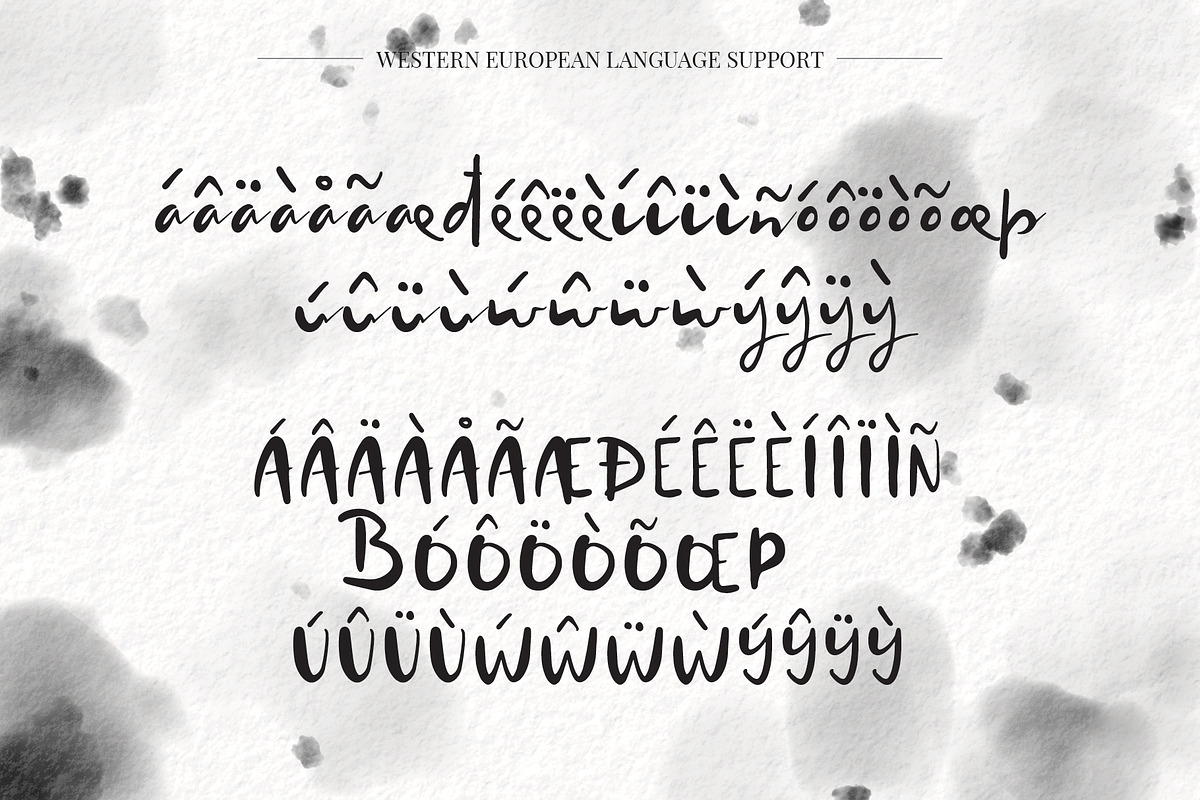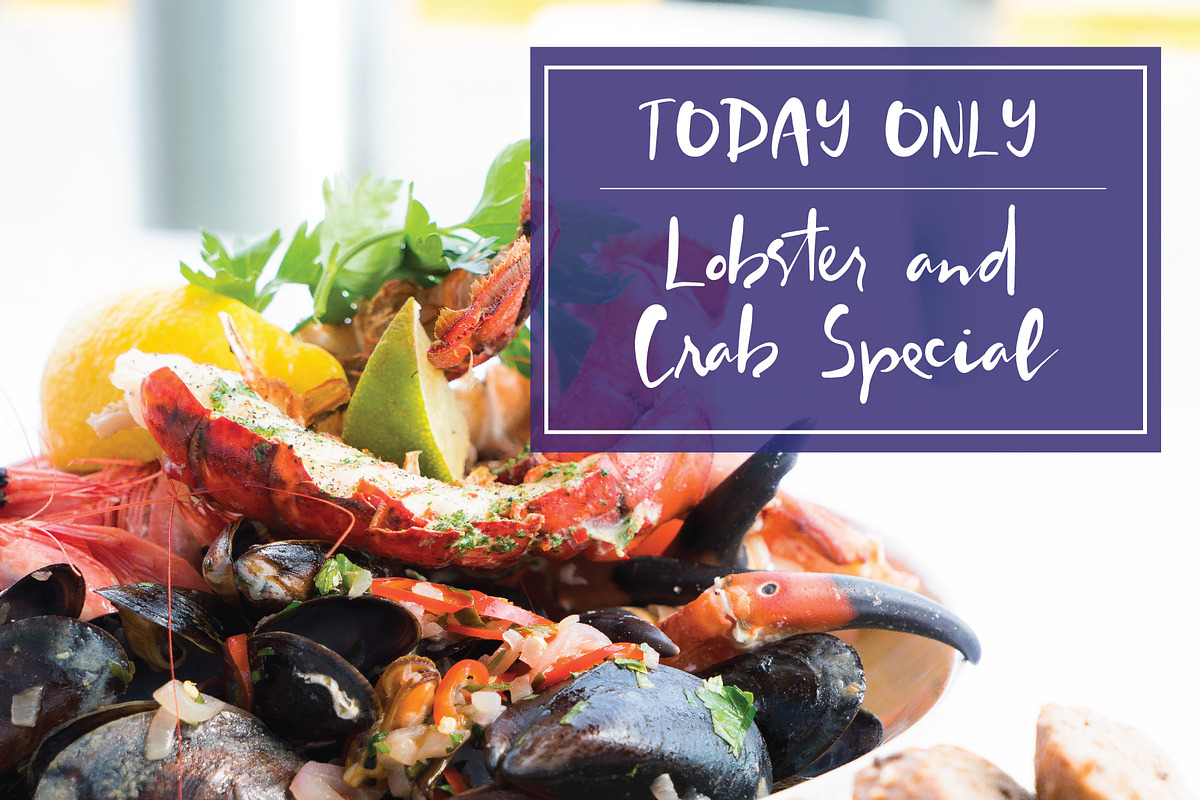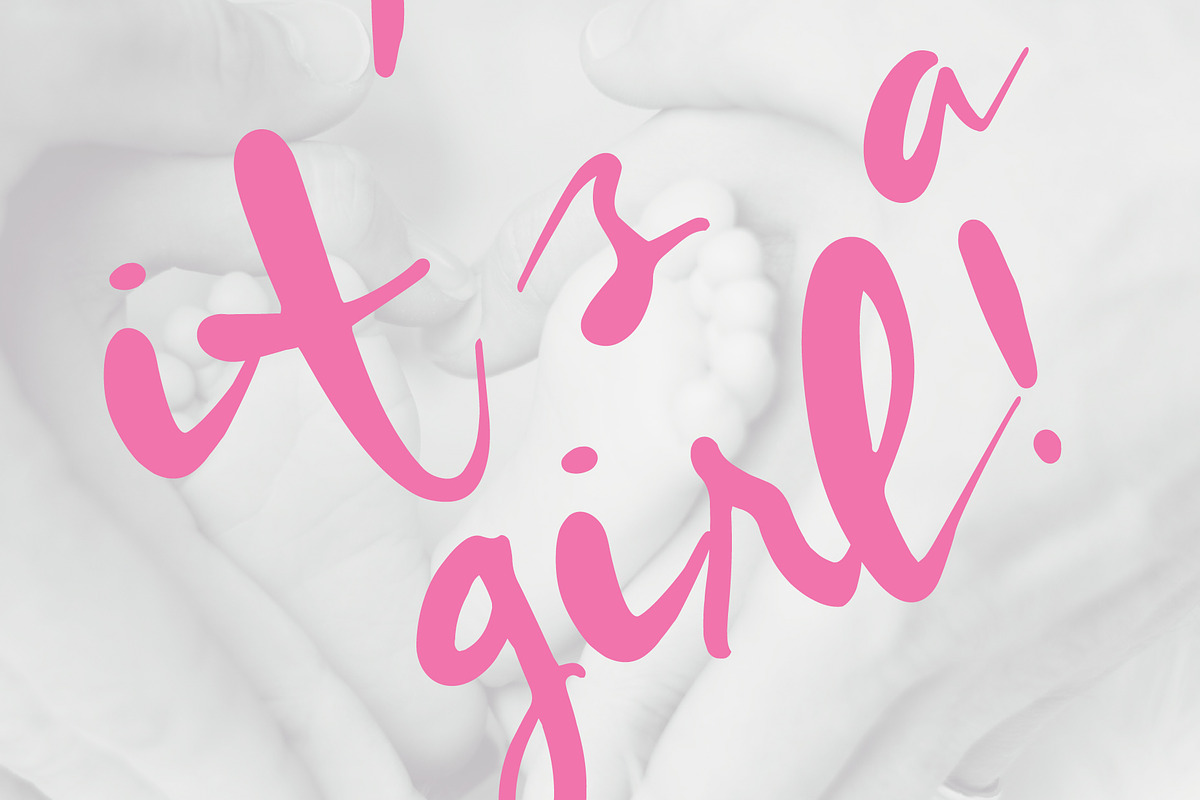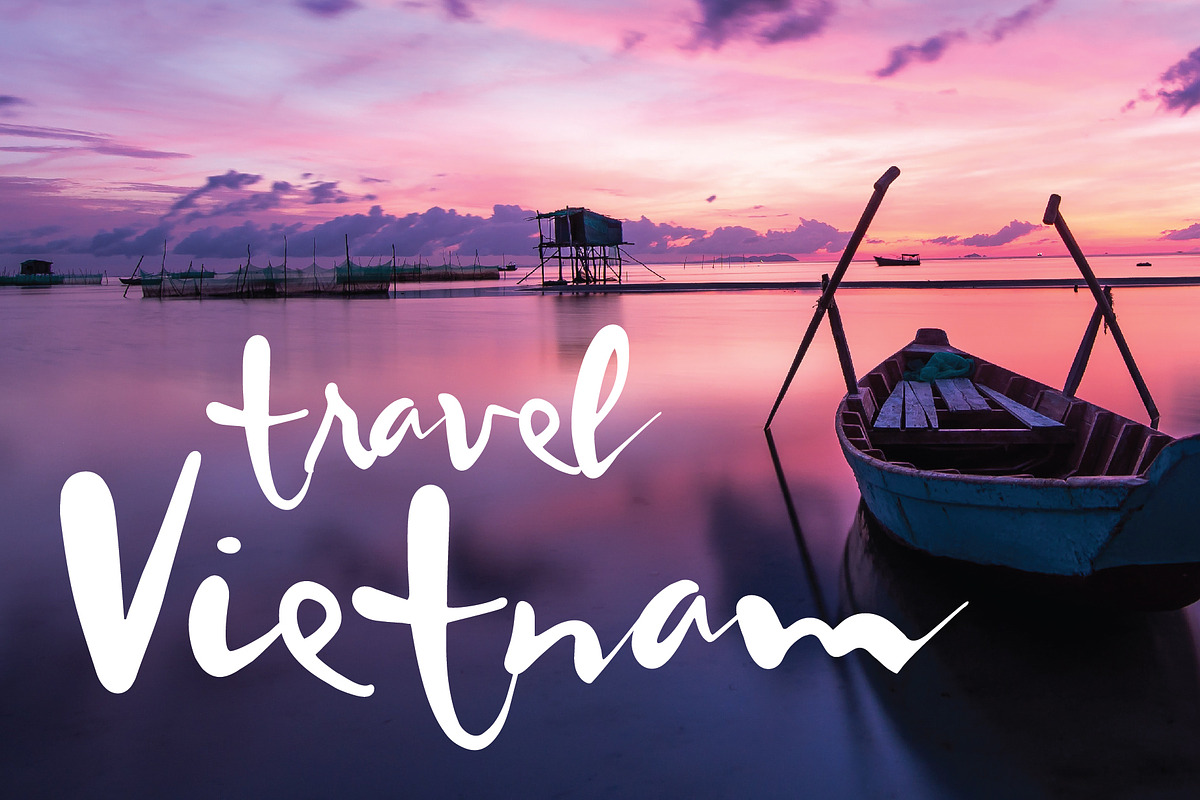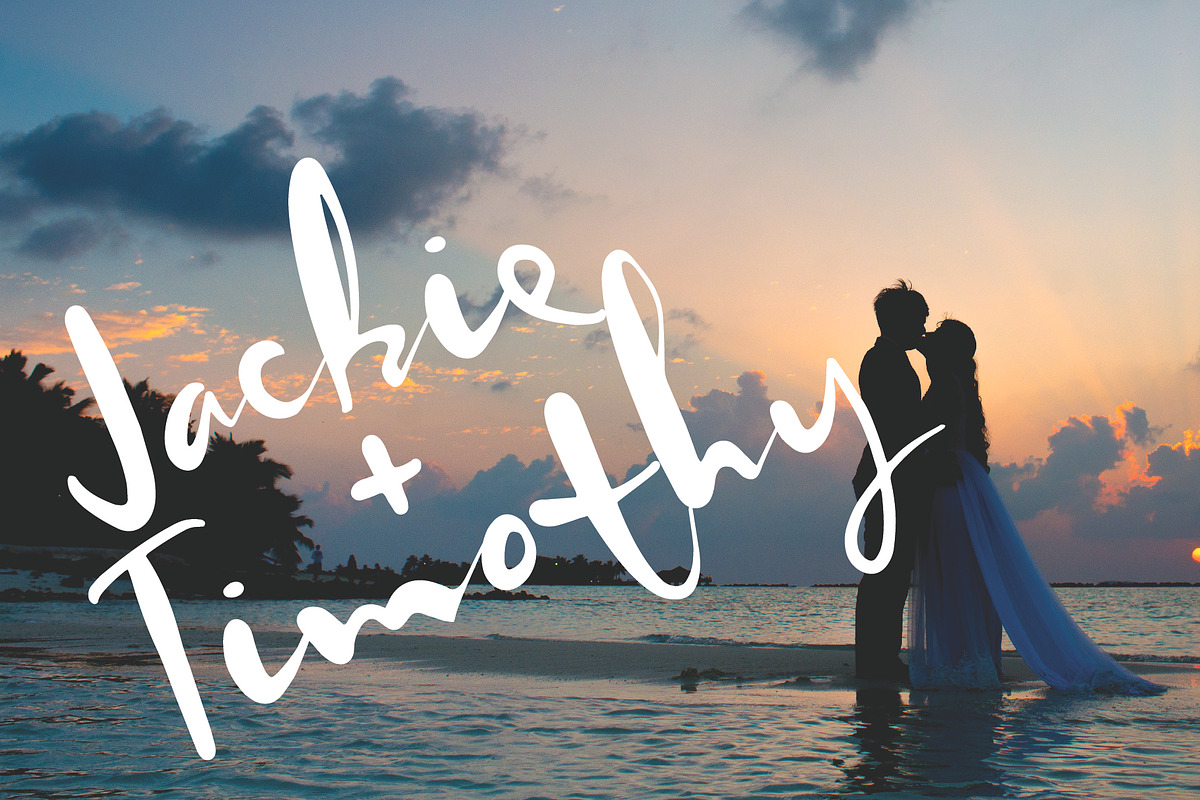
Worthy Story Script Font
Introducing, Worthy Story! A dramatic script font that was inspired by classical calligraphy and asian brush strokes. This hybrid has a mixture of different thickness in strokes, script and san serif letter combination, and a personality that is perfect for professional designer, social media, or crafters.
Why Worthy Story Script Font is worth a look
Worthy Story Script Font by Tu Neuwin fits naturally into Branding, posters, packaging, typography.